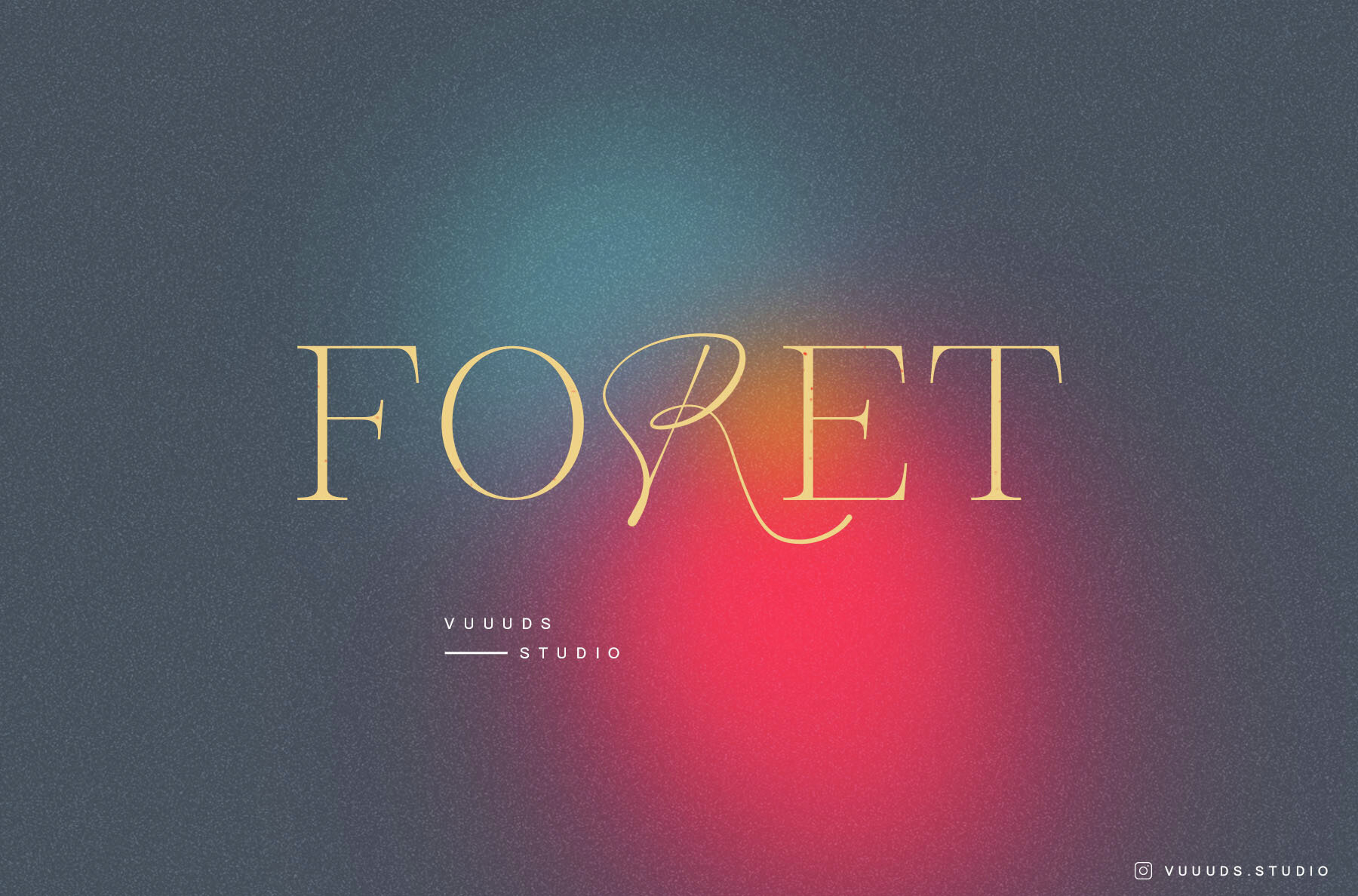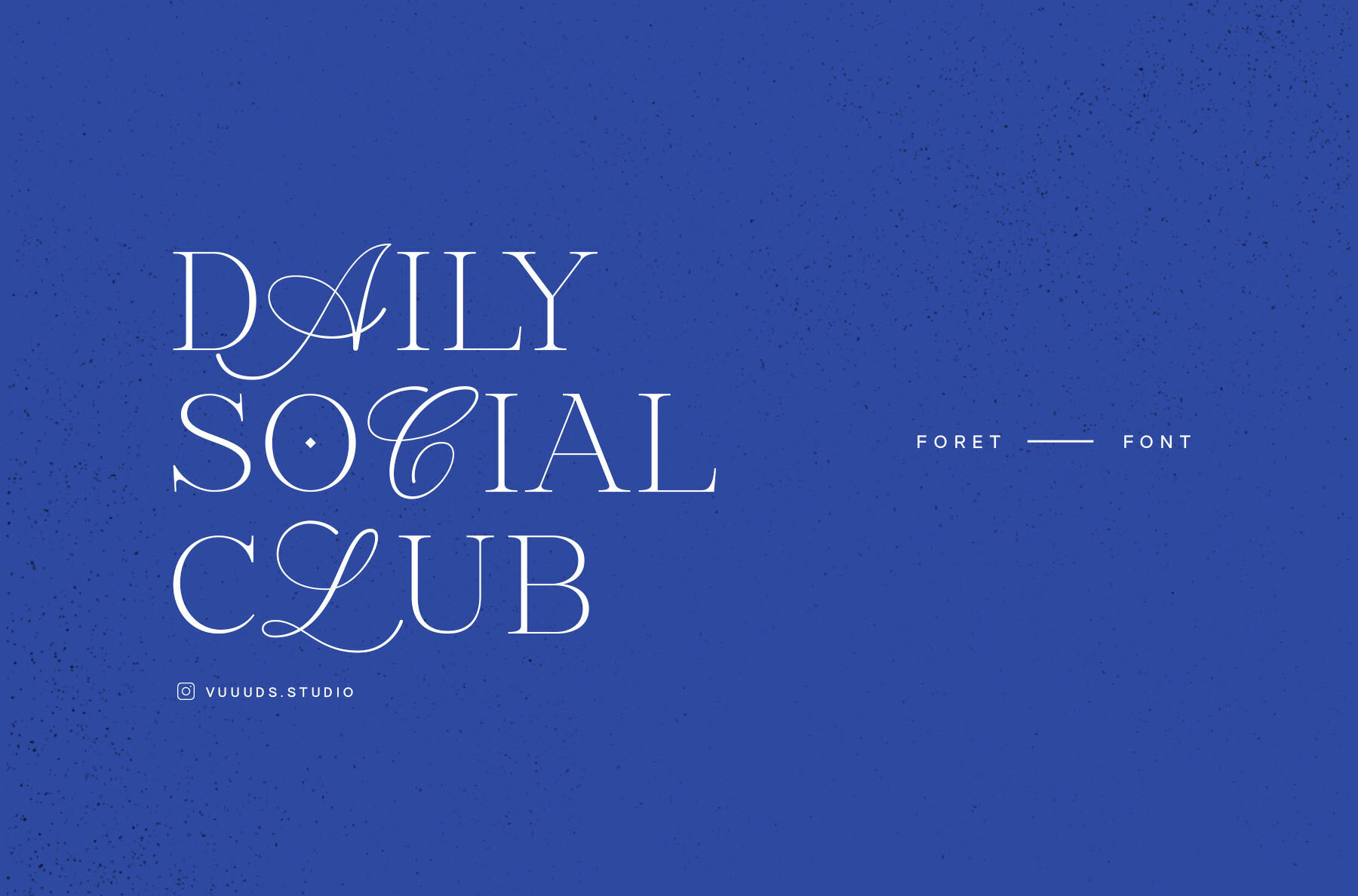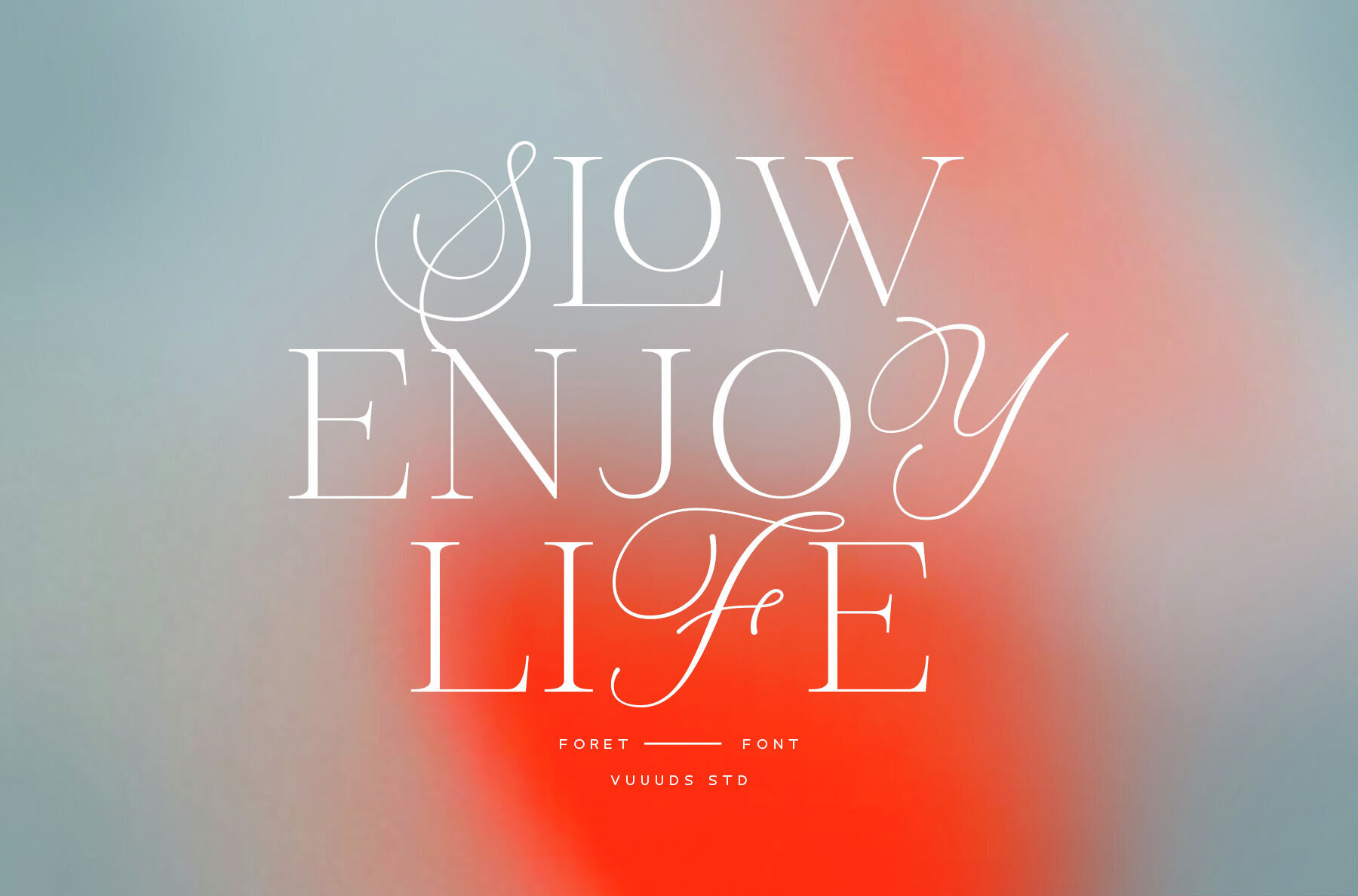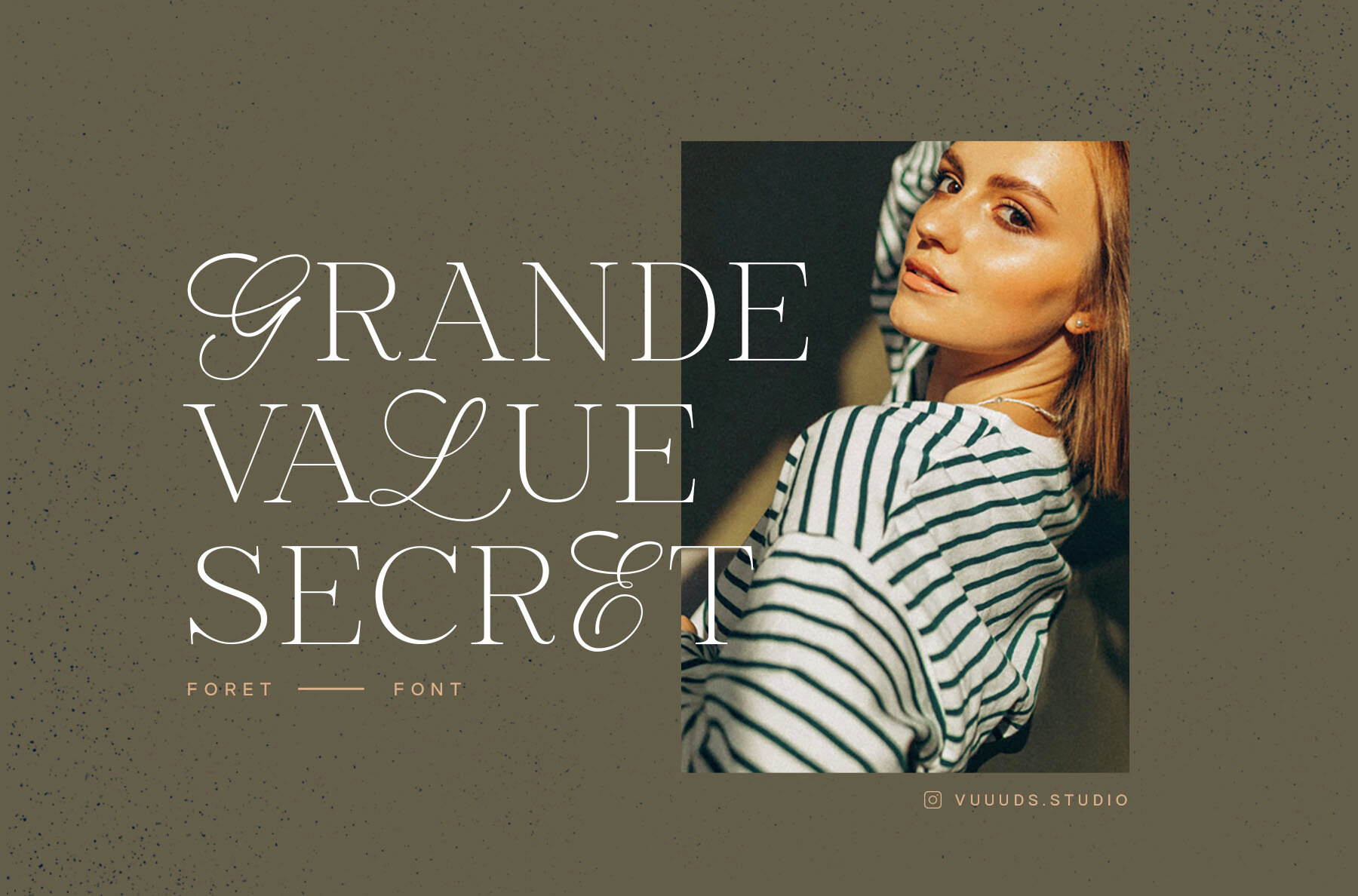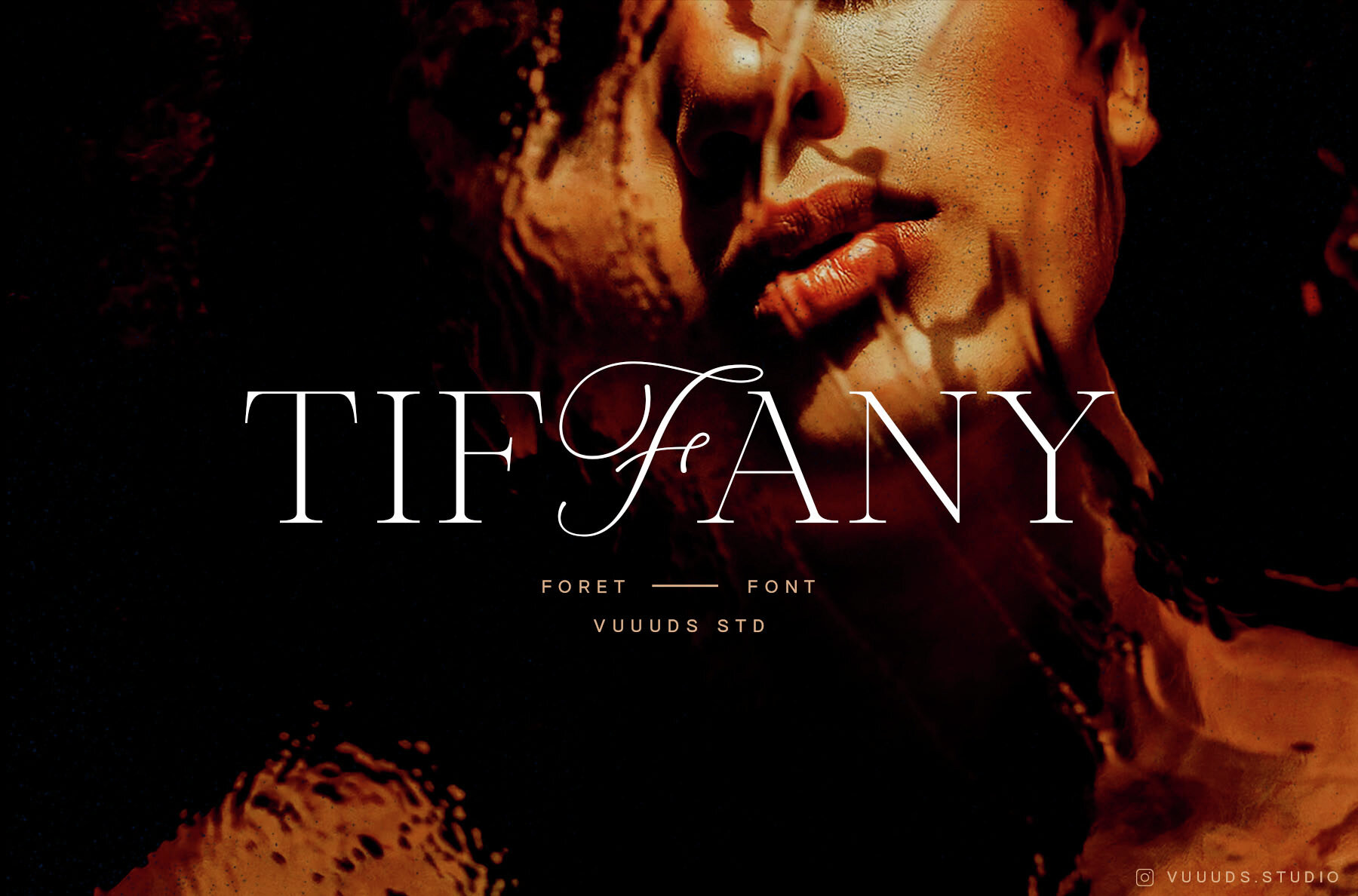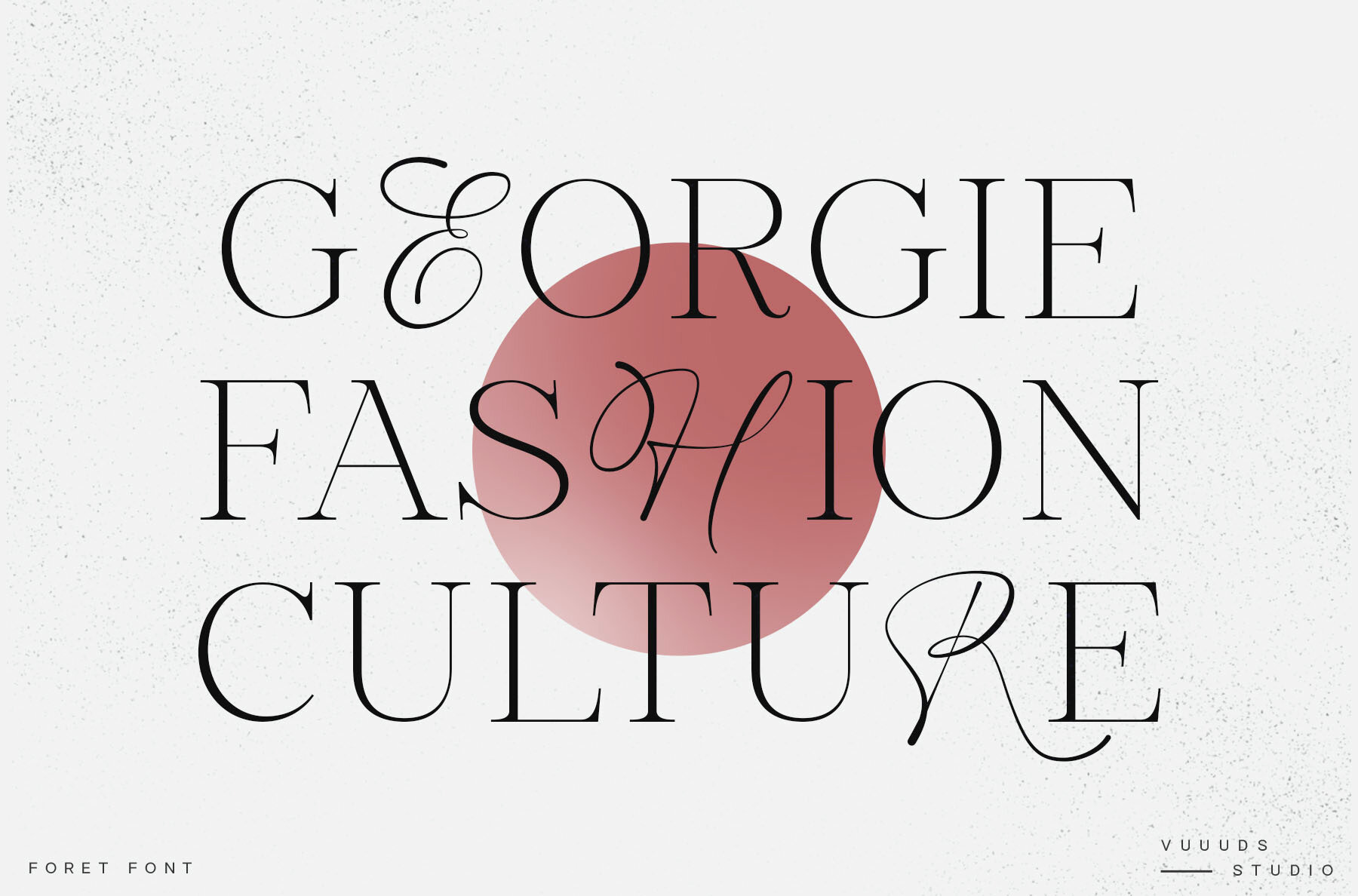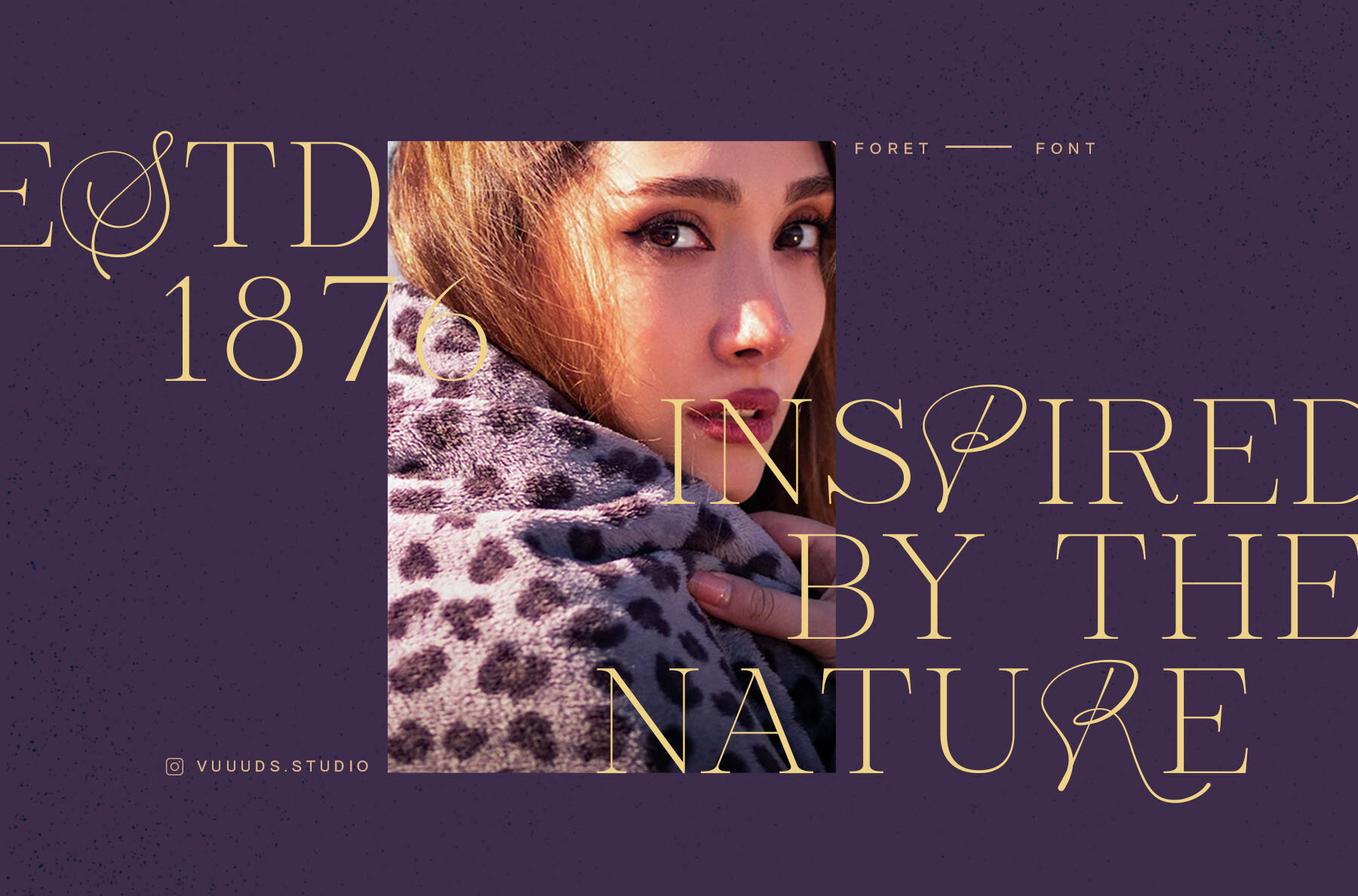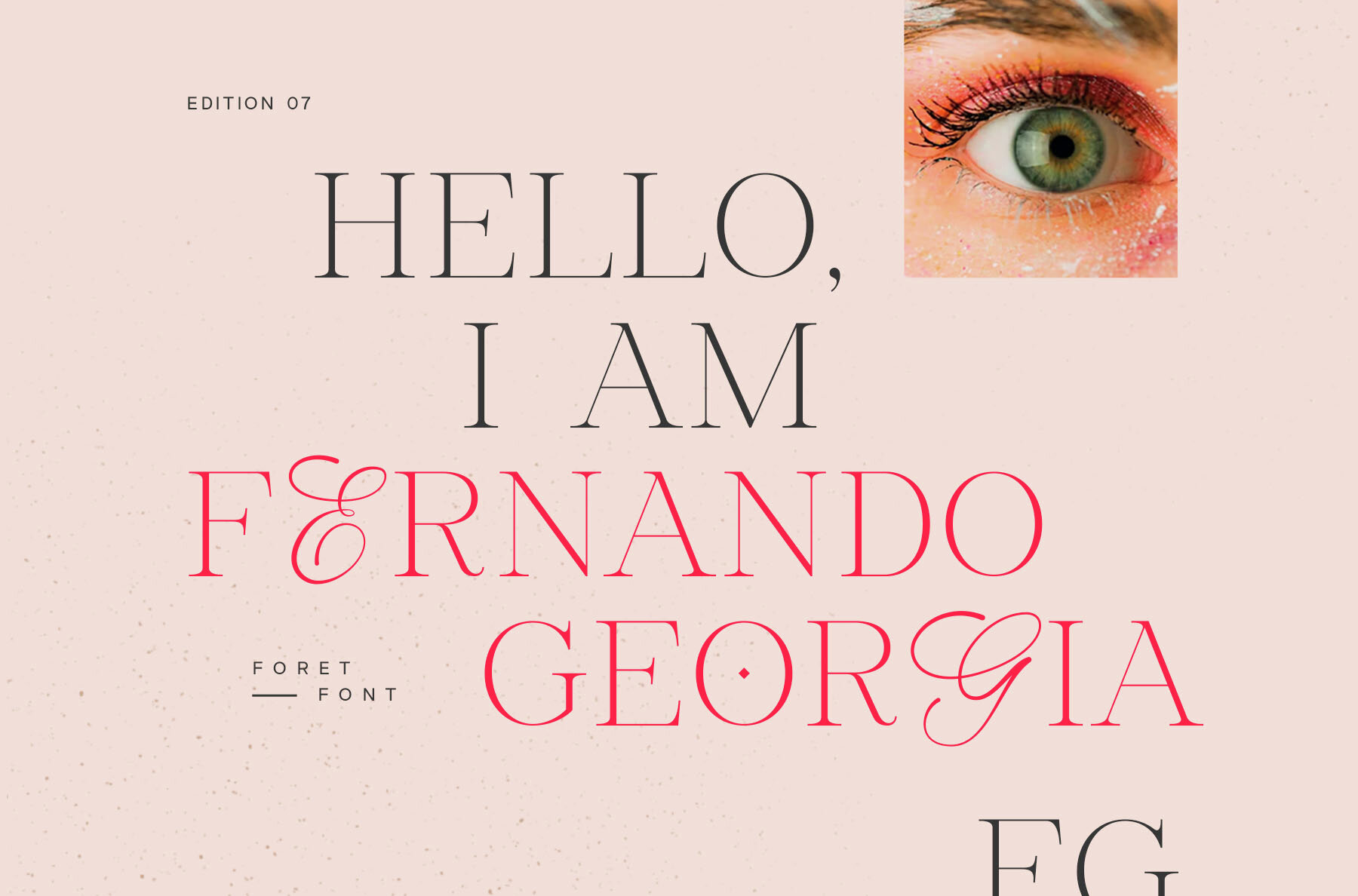
Foret Font
Foret
Foret is a modern experimental font duo that offers uniquely crafted characters for a distinctive design. Every letter in this pair has been meticulously created to ensure a one-of-a-kind typography experience. The font includes beautiful alternate glyphs that can be easily accessed through Font Book on a Mac or the Windows Character Map on a PC. A tutorial is provided inside the zip file to guide you through the process. Thank you for considering the Foret font for your design needs. Instagram: ... Pinterest: ...Foret: A Modern Experimental Font Duo